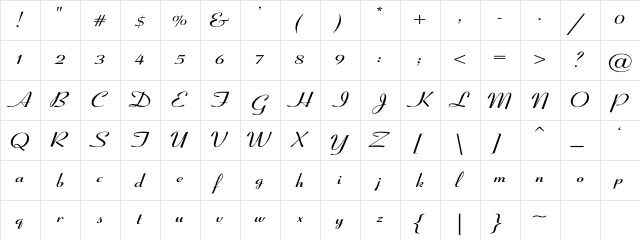
Complete Coronet-SemiBold-Italic Wd Regular glyph index. Displaying only characters natively supported by Coronet-SemiBold-Italic Wd Regular font.
Coronet-SemiBold-Italic Wd is a composed and adaptable typeface that performs quietly and consistently across a wide range of design contexts. The slanted form adds forward momentum and visual energy. Its bold stroke weight gives it real presence on the page.
Pro Tip: Use Coronet-SemiBold-Italic Wd for emphasis, pull quotes, and subheadings where its slanted energy can add rhythm to the layout.